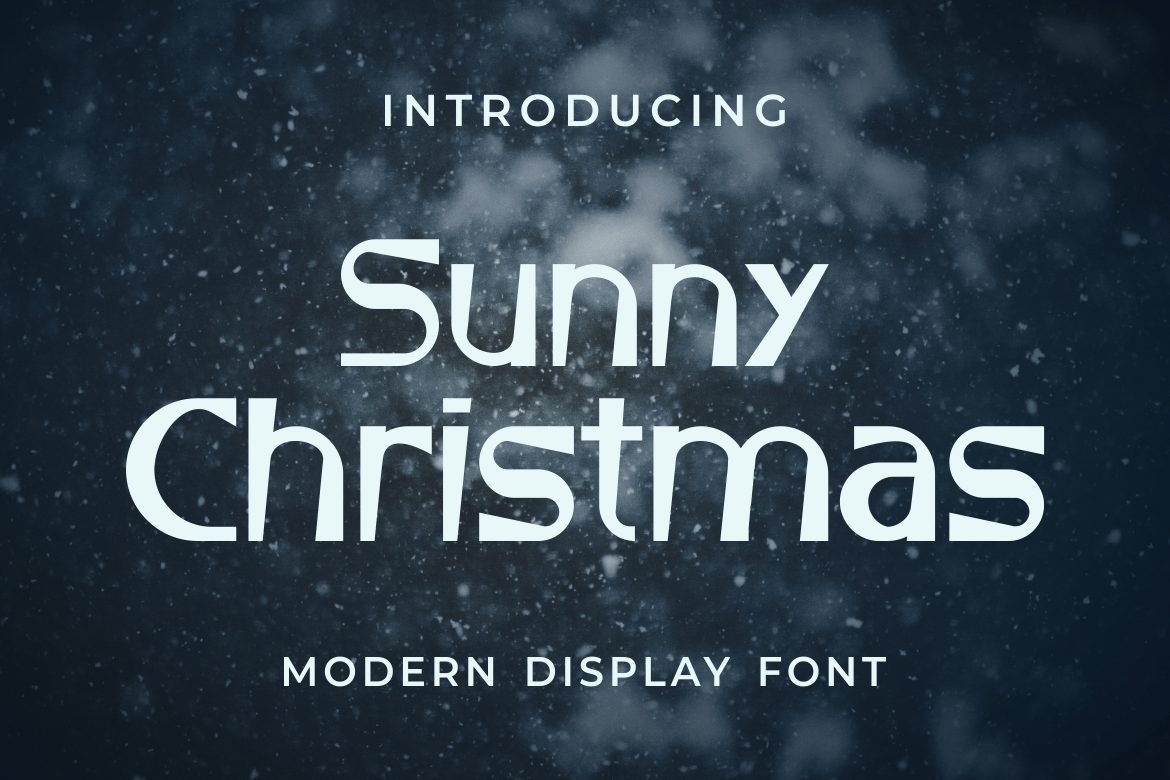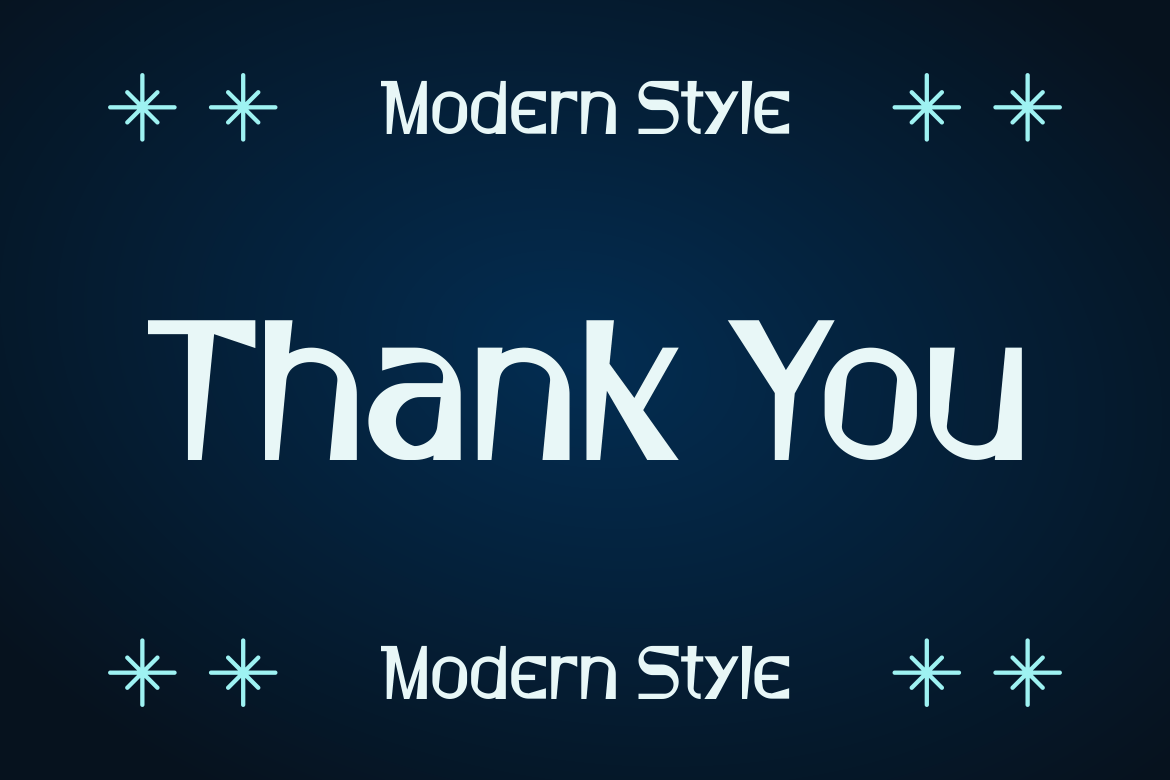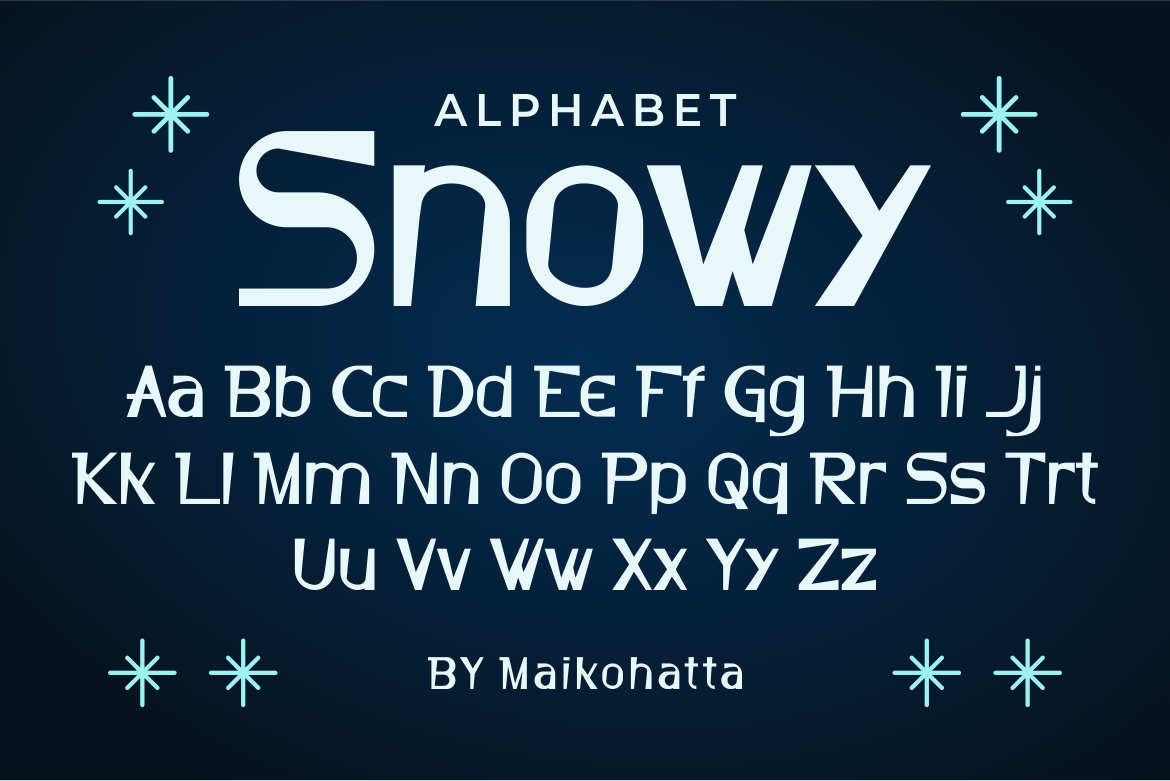
Sunny Christmas Font
Introducing our new product Sunny Christmas Font – Modern Font
Sunny Christmas Font – Modern Font is a bold and authentic display font. The font is suitable for any branding project like logo, t-shirt printing, and many more. outstanding in a wide range of contexts.